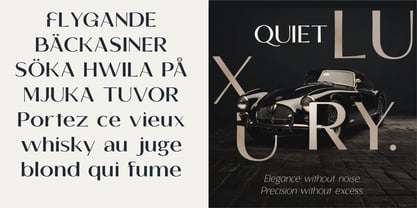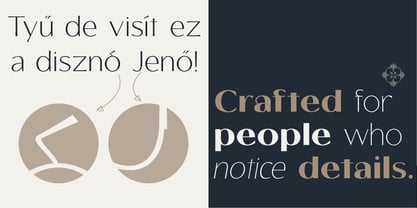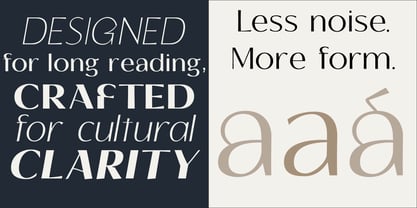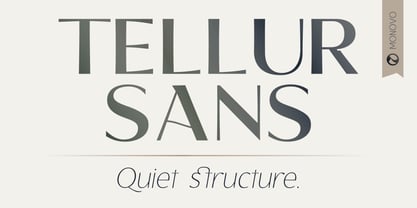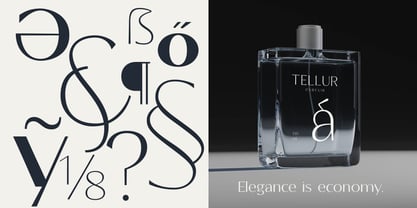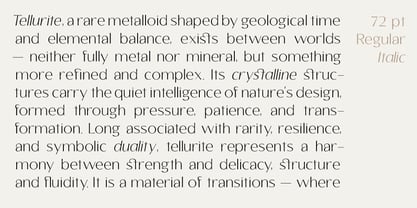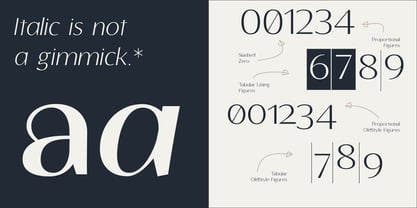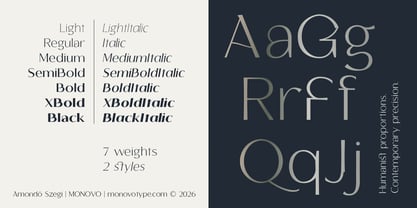
Tellur Sans
The Tellur Sans Font Family was designed by Amondó Szegi and published by Monovo. Tellur Sans contains 14 styles and family package options. More about this family
Seven weights ranging from Light to Black define this contemporary humanist sans serif, where classical proportions seamlessly blend with modern precision. It is expertly crafted for editorial systems, cultural identities, luxury branding, and digital platforms where typography conveys meaning. Tellur Sans strikes a perfect balance between clarity and character, featuring a flowing ‘f’, a closed-aperture ‘G’, and refined alternates that introduce subtle individuality while maintaining composure. The italics serve a purposeful role rather than merely decorative. This typeface excels in both display typography and extended text, showcasing its versatility. It includes extended Latin support, stylistic alternates, ligatures, fractions, and old-style figures, while OpenType features provide flexibility without added complexity. Named after tellurite, the rare metalloid, Tellur embodies a tradition of humanist craftsmanship and structural clarity rooted in Central European typographic culture, reinterpreted for contemporary applications. Ideal for designers who appreciate structure, culture, and understated innovation.